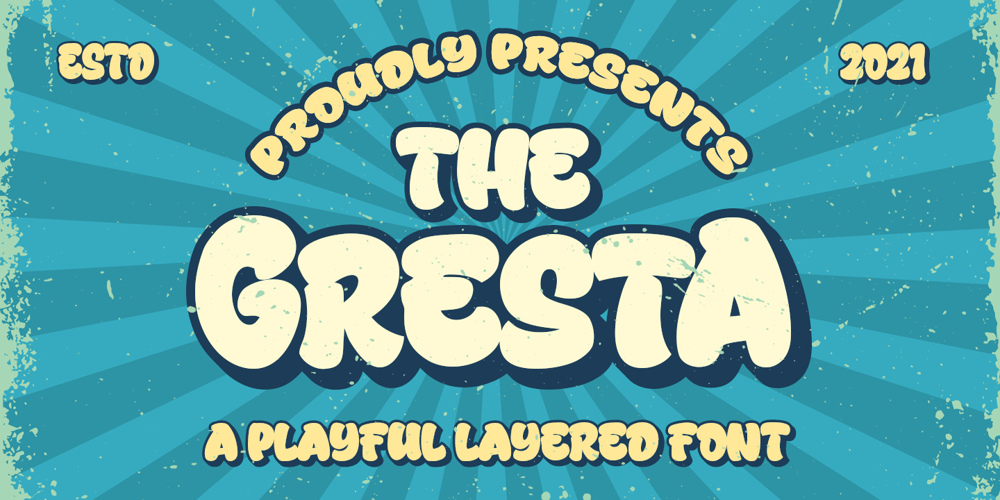
Gresta Font Family was designed by Bangkit Tri Setiadi and published by Blankids. Gresta contains 2 styles and family package options. Introducing of our new product the name is Gresta a Playful Layered Font, Gresta inspired by Playful style with a fun theme very good for Retro, kids and playful theme design.FEATURES : Uppercase Lowercase Number Punctuation Multilingual PUA Encode Opentype